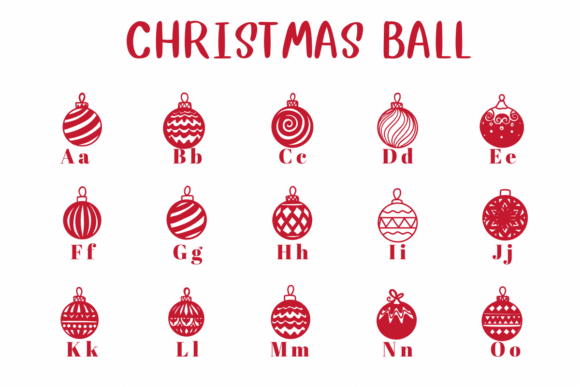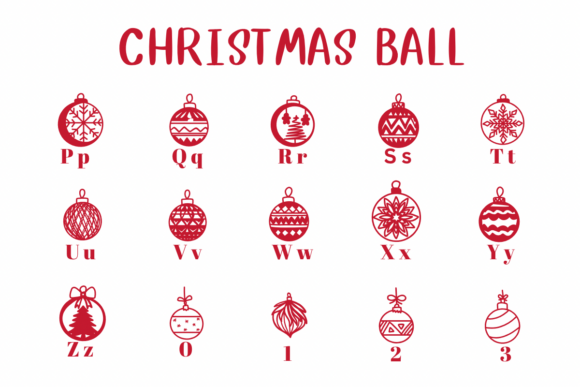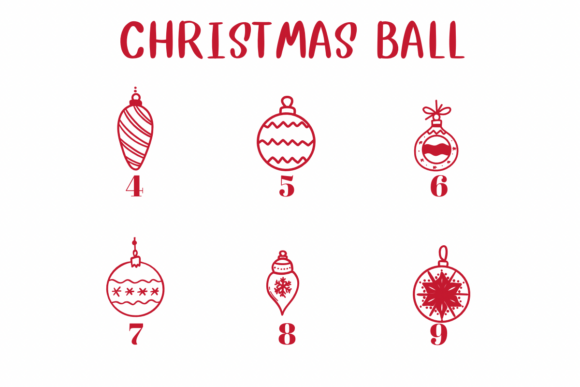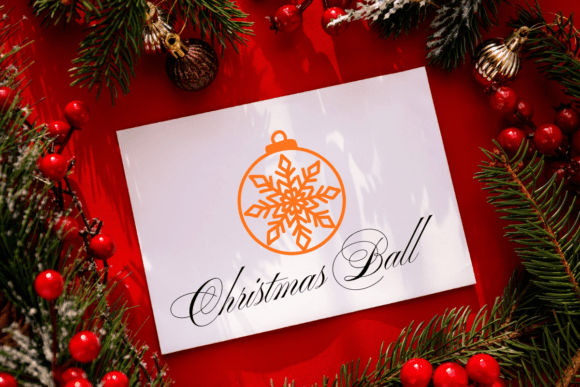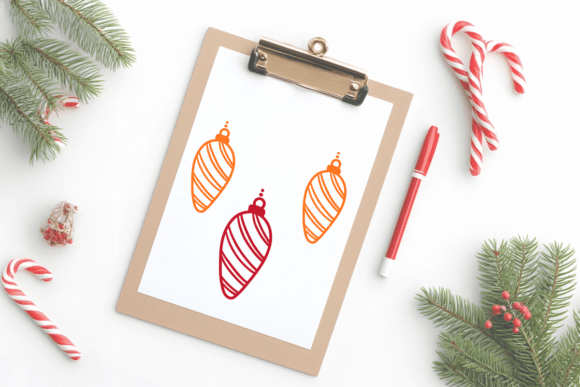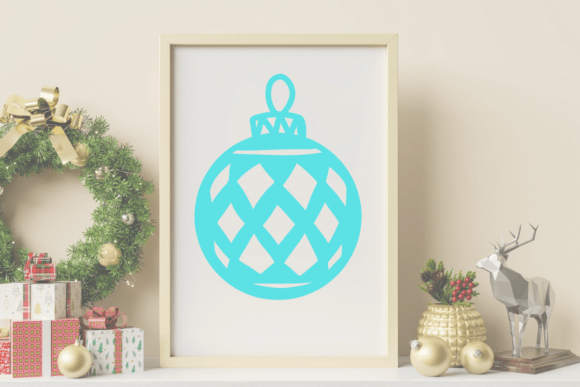
Christmas Ball Font: Add a Touch of Whimsy to Your Designs
Are you looking for a fun and festive font to add to your holiday designs? Look no further than the Christmas Ball Font! This cute dingbats font is perfect for crafters, designers, and anyone looking to add a touch of whimsy to their creative projects.
What is Christmas Ball Font?
Christmas Ball Font is a unique dingbats font that features adorable Christmas ball illustrations. Each character in the font is carefully designed to resemble a colorful Christmas ball, complete with intricate details and patterns. The font is perfect for use in holiday-themed designs, such as Christmas cards, decorations, and gift tags.
Why You’ll Love Christmas Ball Font
There are many reasons why you’ll love Christmas Ball Font. Here are just a few:
- Cute and Whimsical Design: The Christmas Ball Font is designed to be cute and playful, making it perfect for holiday designs that need a touch of fun and personality.
- Versatile: Christmas Ball Font can be used in a variety of creative projects, from digital designs to handmade crafts.
- High-Quality Design: The font is carefully designed with intricate details and patterns, making it perfect for use in high-quality designs.
- Get Creative!: Use the Christmas Ball Font in your holiday designs, such as Christmas cards, gift tags, and decorations.
Ideas for Using Christmas Ball Font
Here are a few ideas for using Christmas Ball Font in your designs:
- Christmas Cards: Use the font to create adorable Christmas cards for your friends and family.
- Gift Tags: Add a personal touch to your gifts with custom gift tags featuring the Christmas Ball Font.
- Holiday Decorations: Use the font to create festive holiday decorations, such as garlands and banners.
- Digital Designs: Use the font in your digital designs, such as holiday-themed social media graphics and blog posts.
Here are a few tips and tricks to help you get the most out of Christmas Ball Font:
- Experiment with Colors: Try using different colors and patterns to add depth and interest to your designs.
- Mix and Match: Combine the Christmas Ball Font with other fonts and graphics to create unique and eye-catching designs.
- Use in Combination with Other Holiday Fonts: Pair the Christmas Ball Font with other holiday fonts to create a festive and cohesive look.
Christmas Ball Font is a fun and festive dingbats font that’s perfect for adding a touch of whimsy to your holiday designs. With its cute and playful design, ease of use, and versatility, it’s a must-have for crafters, designers, and anyone looking to create adorable holiday designs. So why wait? Download Christmas Ball Font today and start creating your own festive holiday designs!